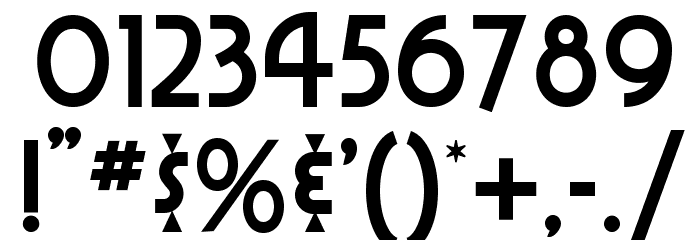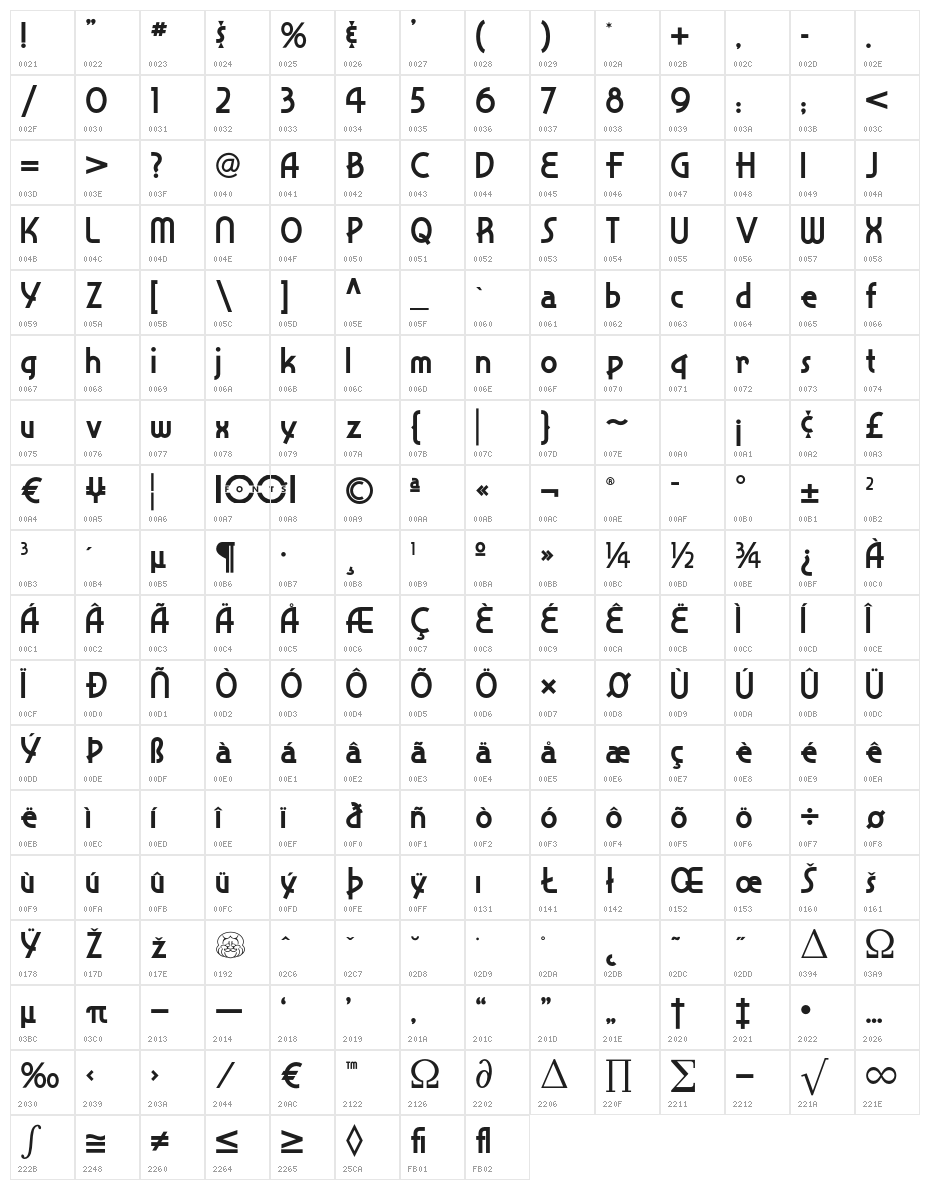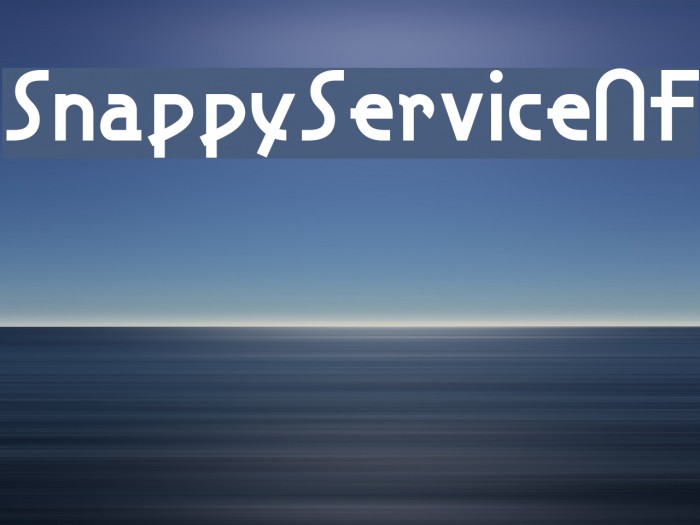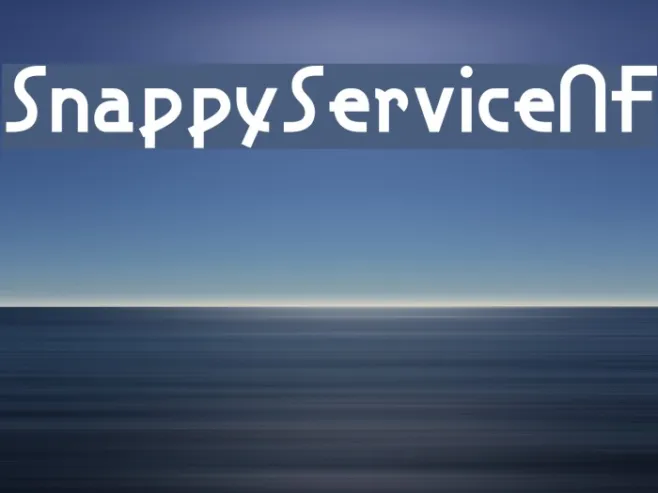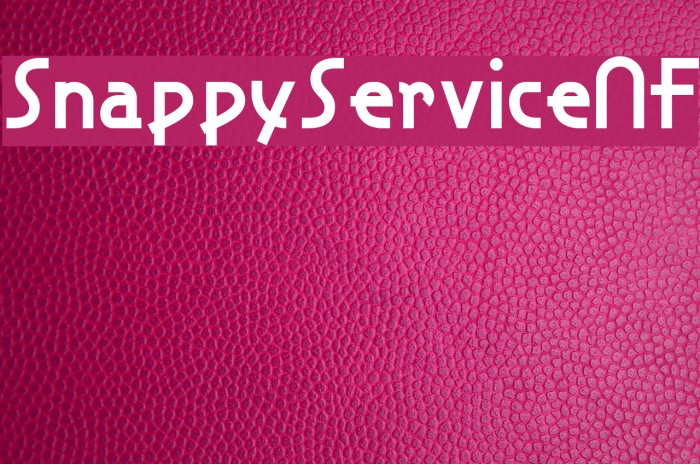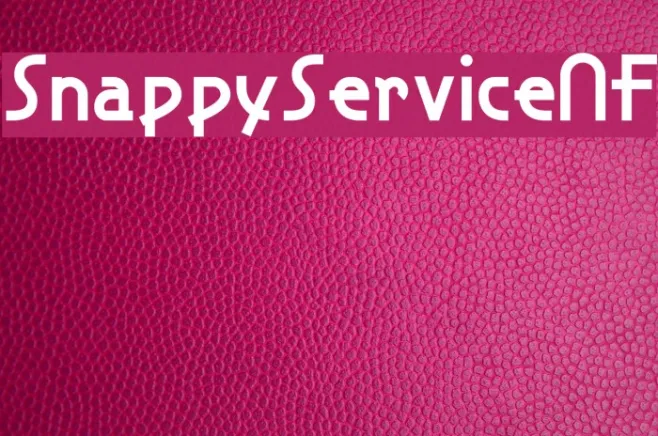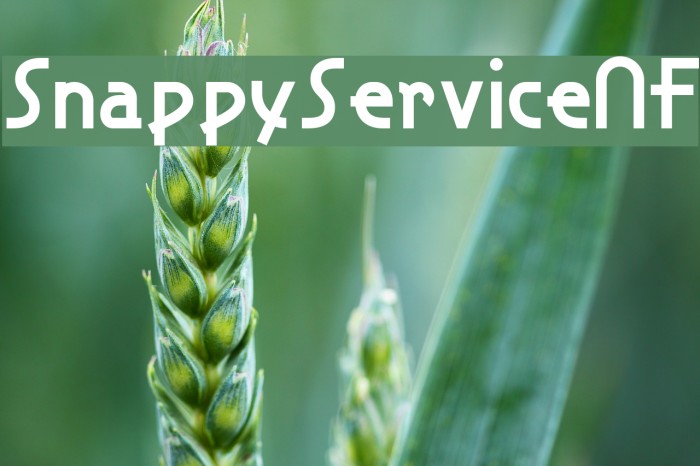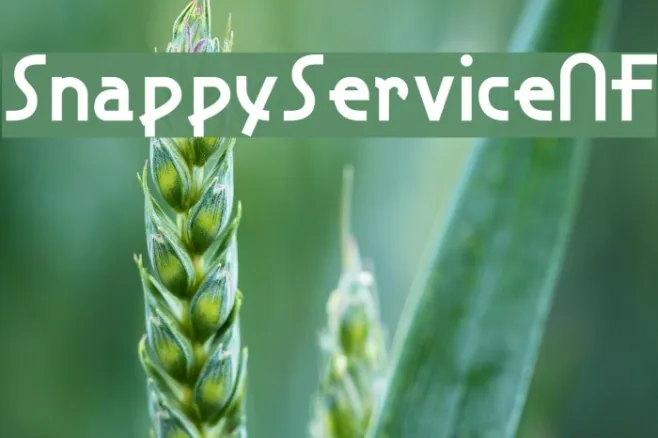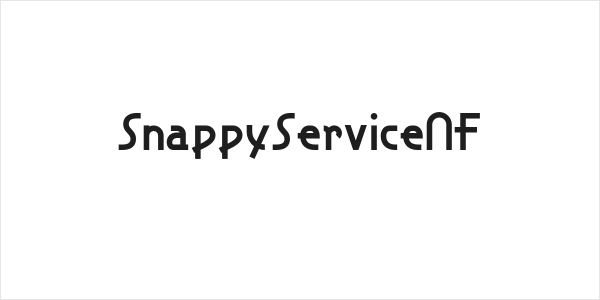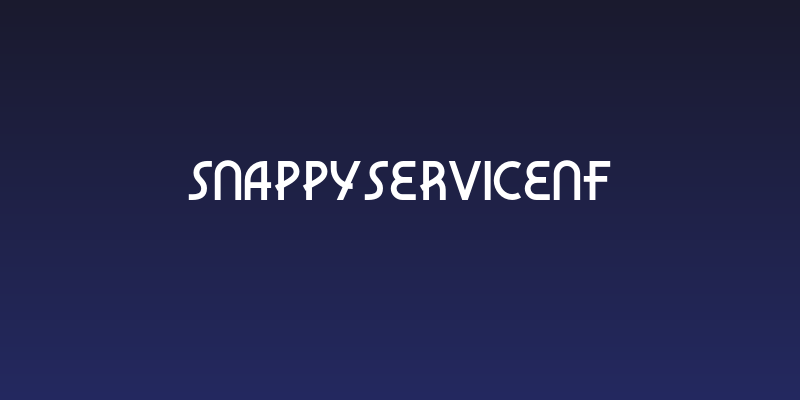
SnappyServiceNF Font
SnappyServiceNF Description
This font features a bold and modern design with clean, geometric lines and a slightly condensed appearance. The uppercase letters are uniform in height, with a consistent stroke width that gives a strong and structured look. The lowercase letters maintain the geometric style, with rounded edges that add a touch of softness to the overall design. Numbers are clear and legible, matching the boldness of the alphabet. Special characters are well-integrated, maintaining the font's cohesive style. This font is versatile, suitable for various design applications where a modern and impactful presence is desired.